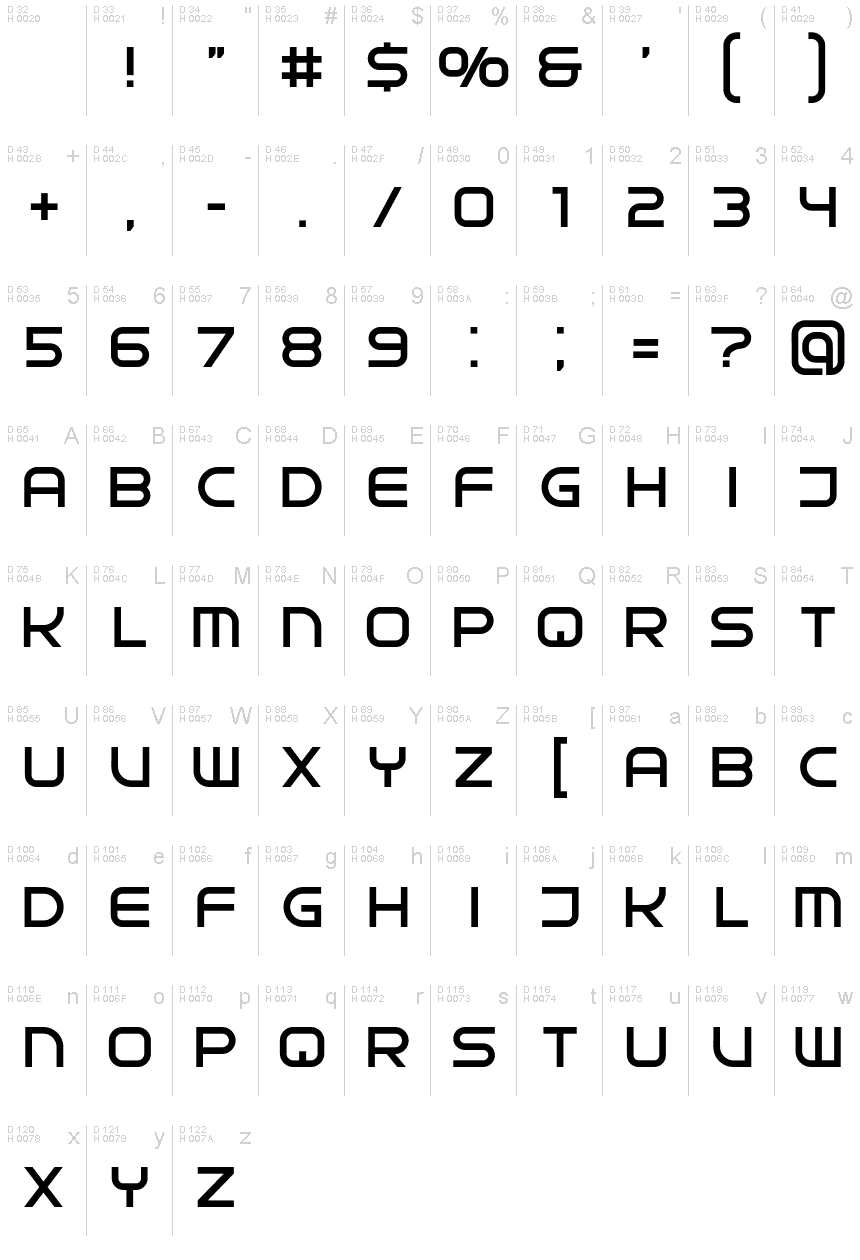
Prefectures Regular
Prefectures, the latest sans serif typeface by Vladimir Nikolic, is a versatile and modern font suitable for a wide range of projects. With its semi-light weight and expanded width, Prefectures exudes an air of sophistication and professionalism while remaining approachable. Perfect for branding projects, editorial design, advertising campaigns, and more, this font's clean lines and ample spacing make it easy to read at any size. Whether you're designing a sleek website or creating eye-catching packaging for your products, Prefectures is the perfect choice for anyone looking to make a statement with their typography.